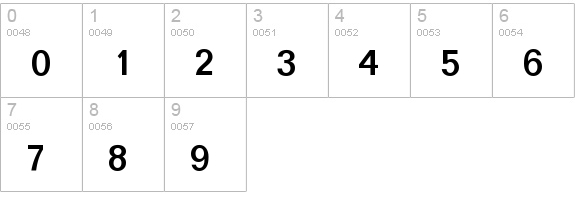
FolioTEEMed Font Details
FolioTEEMed font is a versatile and modern typeface that effortlessly combines elegance and readability. With its clean lines and balanced proportions, FolioTEEMed is perfect for a wide range of design projects, from branding to editorial layouts. This font exudes sophistication and professionalism, making it an ideal choice for both print and digital applications. What sets FolioTEEMed font apart is not only its striking appearance but also its accessibility. Designed with the user in mind, this font is available for free download at FontsMarket.com. Now you can elevate your designs with this premium font without any additional cost. Whether you are a seasoned designer or a budding enthusiast, FolioTEEMed font is sure to enhance the visual impact of your projects. Download it today and explore the endless creative possibilities that this font has to offer.